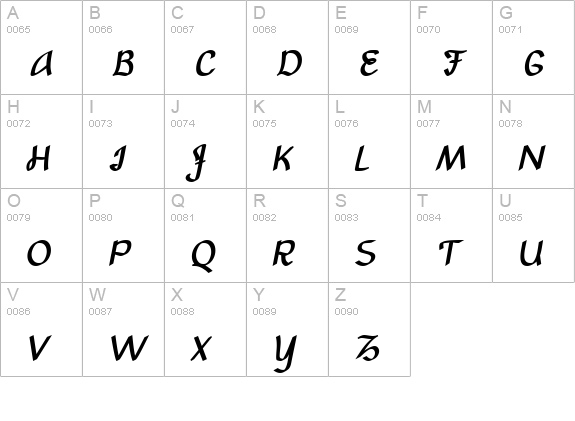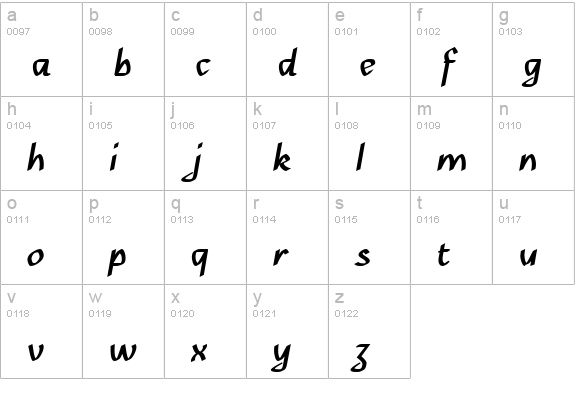
Handana Bold Font Details
Handana Bold is a strong, high-contrast variant in the Handana typeface family \xE2\x80\x94 well suited to headlines, attention-grabbing titles, and strong calls-to-action.
Handana Bold is a striking and robust typeface that exudes confidence and power. Its bold and commanding presence makes it perfect for headlines, titles, and attention-grabbing designs. With its strong and sturdy letterforms, Handana Bold demands attention and leaves a lasting impression. This font is not only visually appealing but also versatile, making it suitable for a wide range of design projects. Whether you are creating posters, logos, packaging, or branding materials, Handana Bold will elevate your designs to new heights. One of the best things about Handana Bold is that it is freely available to download at FontsMarket.com. This means that you can easily access and use this remarkable font in your projects without any restrictions. The convenience and accessibility of Handana Bold make it a valuable asset for designers and creatives alike. With its bold and impactful design, Handana Bold is sure to make a statement and capture attention. Its sharp edges and strong lines give it a modern and contemporary feel, while its unique character adds a touch of elegance and sophistication. In conclusion, Handana Bold is a must-have font for any designer looking to make a bold statement. Its striking appearance, versatility, and free availability at FontsMarket.com make it an invaluable tool for creating impactful and memorable designs. Download Handana Bold today and experience the power of this exceptional font.